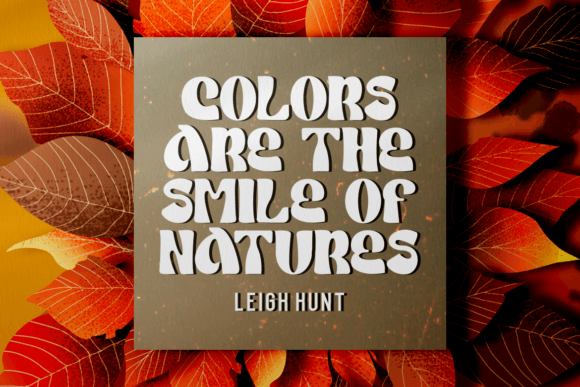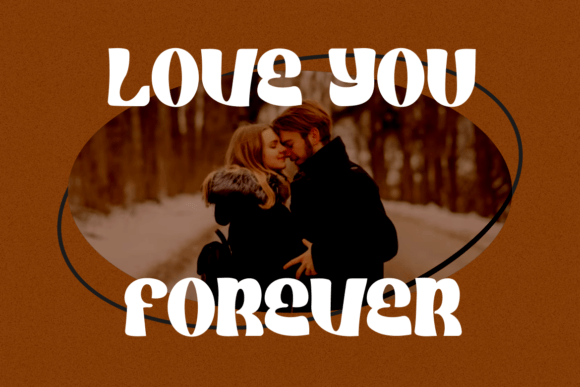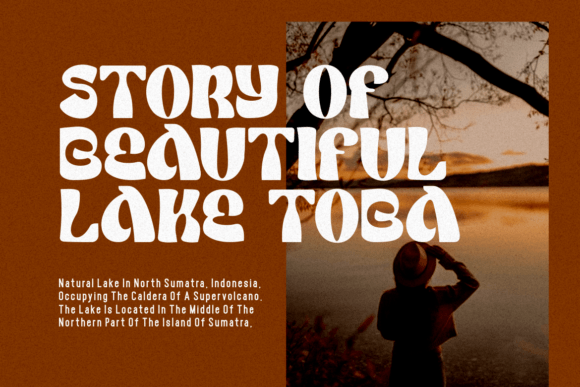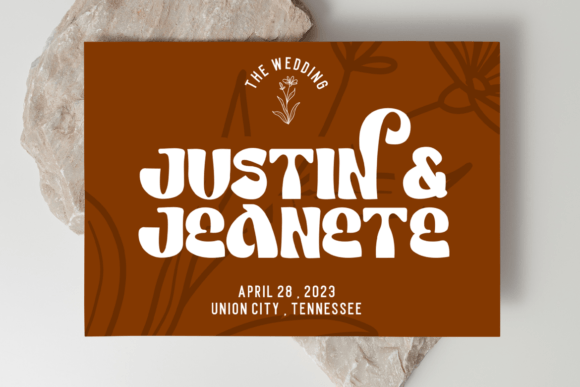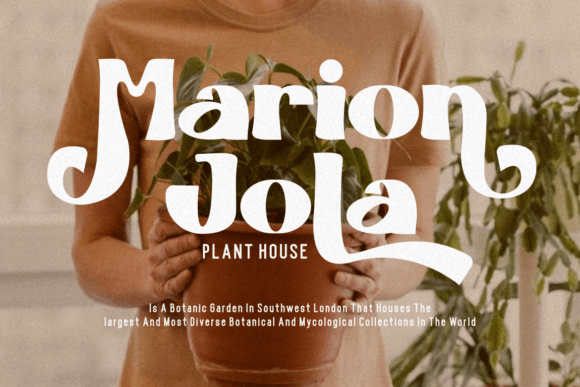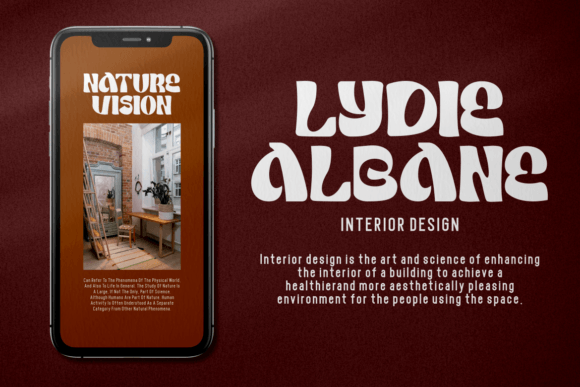
Introducing Comet Hotspur Font: A Bold and Distinctive Display Typeface
In the world of typography, fonts play a crucial role in conveying the tone and personality of a design. For designers and crafters looking for a bold and eye-catching font, Comet Hotspur Font is an excellent choice. This display typeface font seamlessly blends modern and retro aesthetics, making it a versatile and captivating typographic solution.
A Unique Blend of Modern and Retro Aesthetics
Comet Hotspur Font boasts a unique character shape, bold strokes, and alternative letterforms that set it apart from other fonts. The font exudes a retro bold and vintage vibe while maintaining a fresh and contemporary edge. This blend of old and new makes it an excellent choice for various design projects, from logos and branding materials to titles, posters, film graphics, cards, quotes, and landing page titles.
Key Features of Comet Hotspur Font
- Bold and Distinctive: Comet Hotspur Font features bold strokes and unique character forms that make it stand out from other fonts.
- Retro and Modern: The font combines the nostalgic charm of vintage typography with a modern twist, resulting in a fresh and contemporary look.
- Alternative Letterforms: The font offers alternative letterforms, providing creative options for customization and allowing you to tailor the typography to match your design vision.
- Versatile: Comet Hotspur Font is suitable for various design projects, including logos, branding materials, titles, posters, film graphics, cards, quotes, and landing page titles.
Design Applications for Comet Hotspur Font
Comet Hotspur Font is an excellent choice for designers and crafters looking to create visually striking designs. Here are some design applications where this font can make a significant impact:
- Logos and Branding Materials: Use Comet Hotspur Font to create bold and memorable logos and branding materials that reflect your brand’s personality.
- Titles and Posters: The font’s bold and attention-grabbing appearance makes it perfect for titles and posters that require a striking visual impact.
- Film Graphics: Comet Hotspur Font can add a touch of nostalgia and sophistication to film graphics, making it an excellent choice for movie titles, credits, and promotional materials.
- Cards and Quotes: The font’s unique character shapes and bold strokes make it suitable for creating visually appealing cards and quotes that convey a message with impact.
- Landing Page Titles: Use Comet Hotspur Font to create bold and attention-grabbing landing page titles that capture visitors’ attention and encourage them to explore your website.
Why Choose Comet Hotspur Font?
Comet Hotspur Font offers a unique combination of modern and retro aesthetics, making it an excellent choice for designers and crafters looking for a bold and distinctive font. Here are some reasons why you should choose Comet Hotspur Font:
- Unique and Memorable: The font’s bold strokes and unique character forms make it stand out from other fonts, ensuring that your designs are memorable and visually striking.
- Versatile: Comet Hotspur Font is suitable for various design projects, making it an excellent addition to your font library.
- Customizable: The font’s alternative letterforms provide creative options for customization, allowing you to tailor the typography to match your design vision.
Comet Hotspur Font is a bold and distinctive display typeface font that seamlessly blends modern and retro aesthetics. With its unique character shapes, bold strokes, and alternative letterforms, this font offers a captivating typographic solution for designers and crafters. Whether you’re creating logos, branding materials, titles, posters, film graphics, cards, quotes, or landing page titles, Comet Hotspur Font will infuse your designs with a bold and unforgettable visual impact.